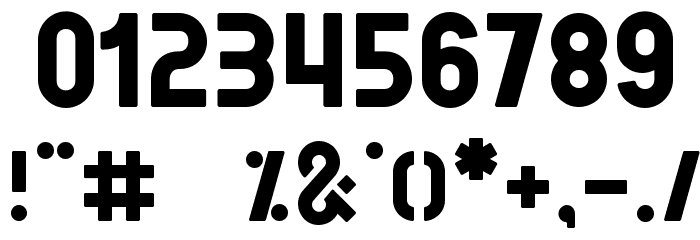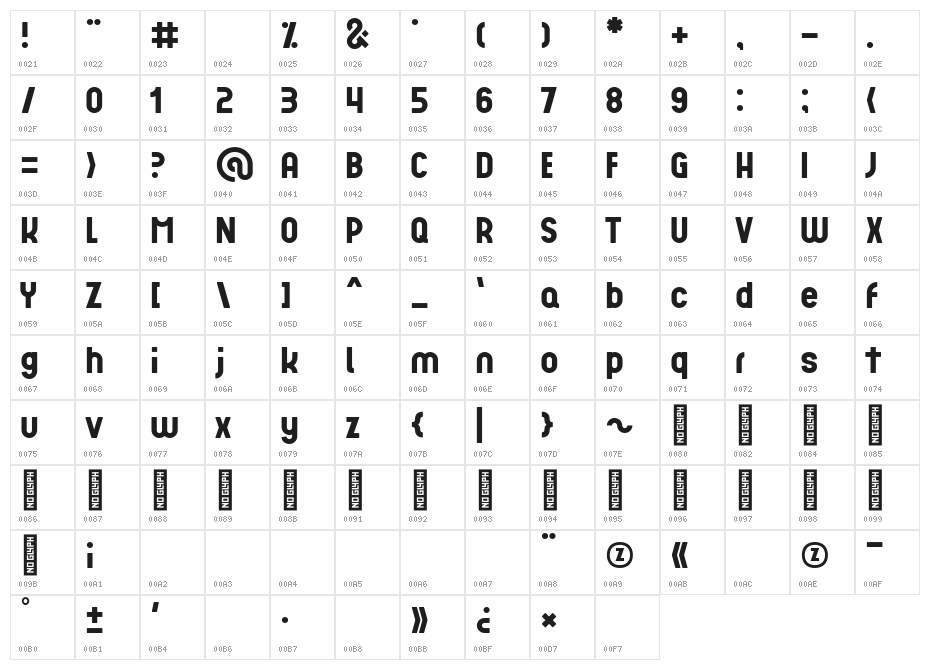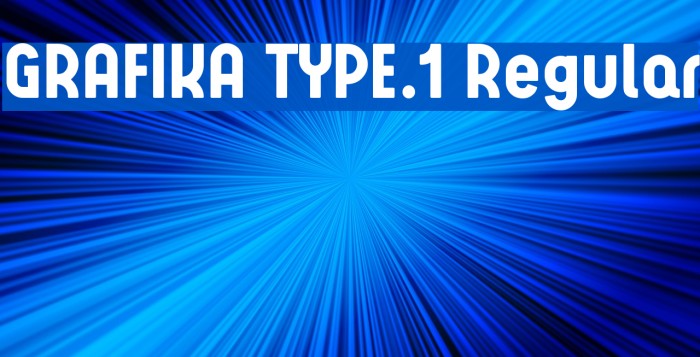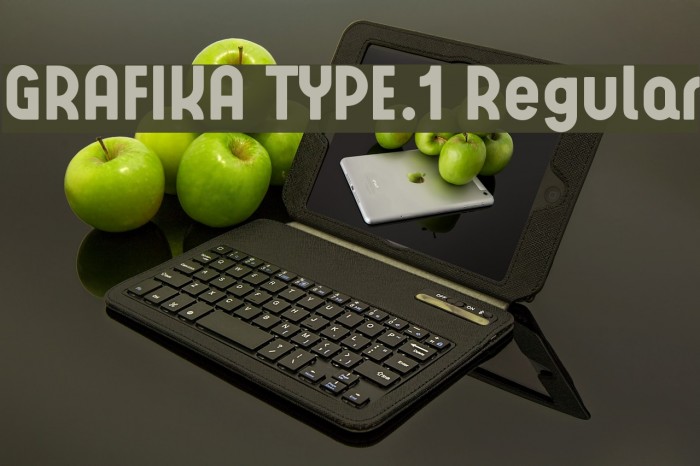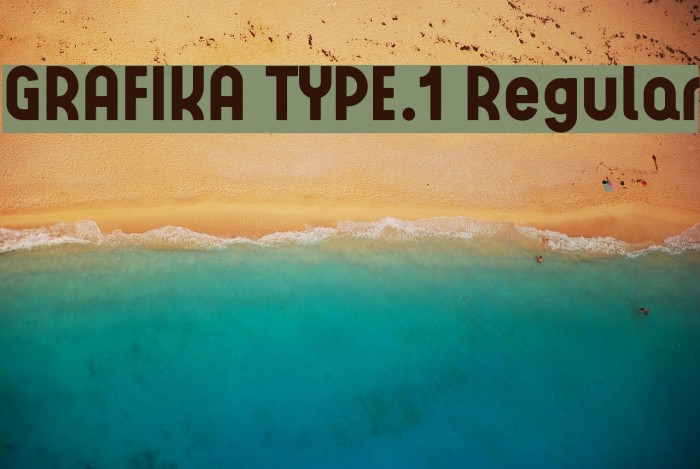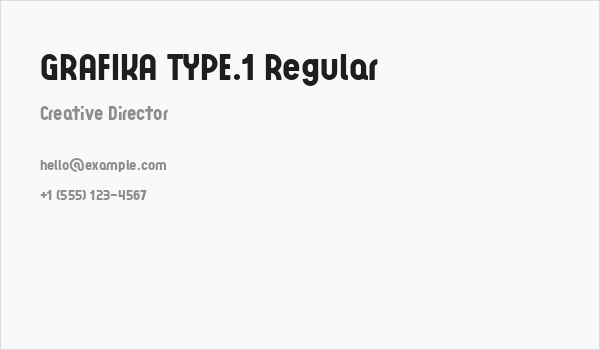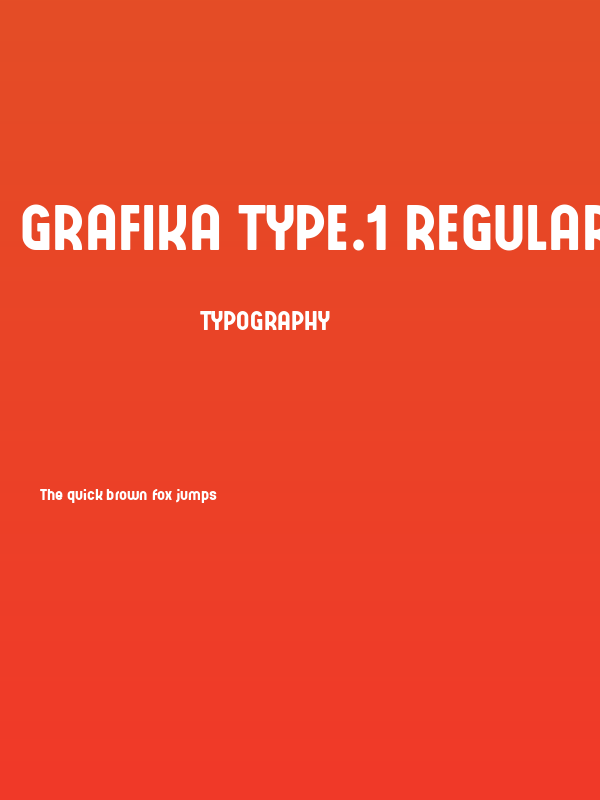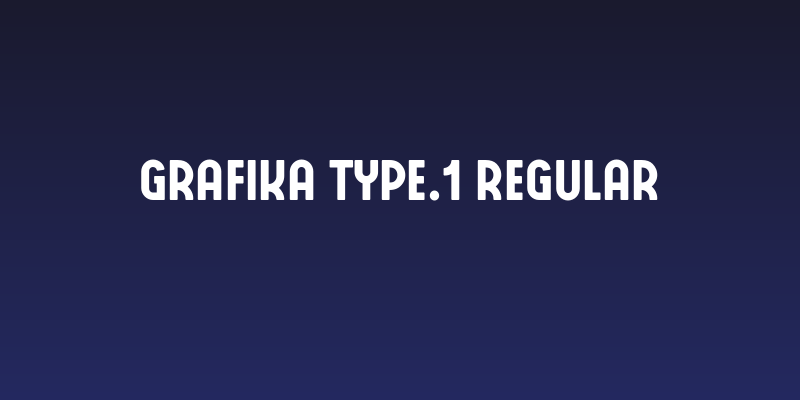
GRAFIKA TYPE.1 Regular Font
GRAFIKA TYPE.1 Regular Description
This font features a bold and modern design with rounded edges, giving it a friendly and approachable appearance. The characters are evenly spaced, providing a clean and organized look. The uppercase and lowercase letters maintain a consistent style, with a slight geometric influence that adds to its contemporary feel. The numerals are clear and distinct, making them easily readable. Special characters are well-integrated, maintaining the overall aesthetic of the font. This typeface is versatile, suitable for a variety of design projects that require a modern and bold statement.
| Proposed Projects | Ideal for branding, advertising, posters, and digital media projects. |